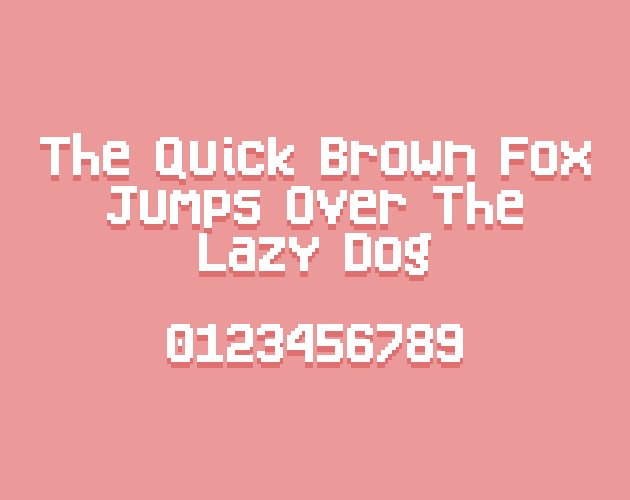
Tomorrow Night is a 10x15 pixel art font with bold lettering, and a slightly curvy appearance. A great font for titles, headers, dialogue, and much more.